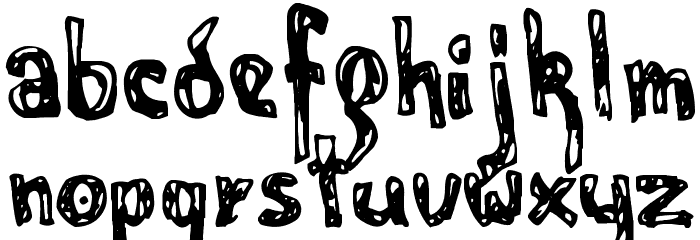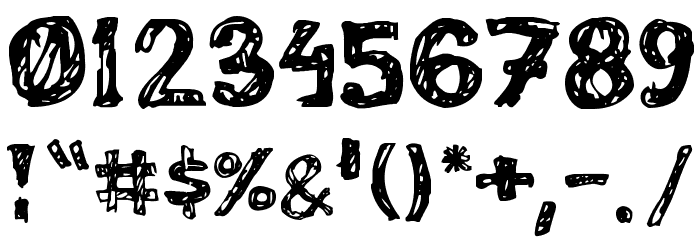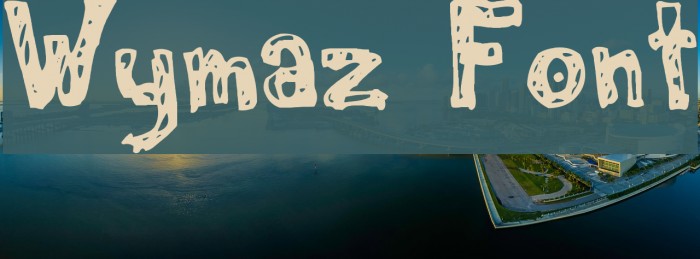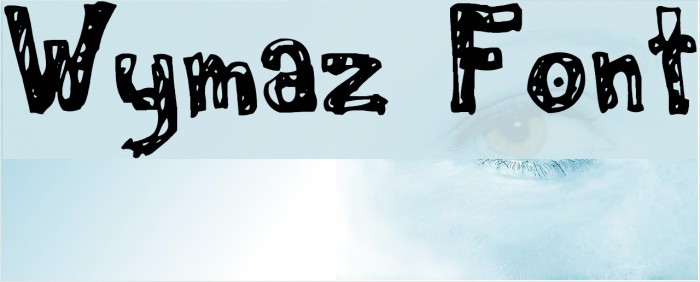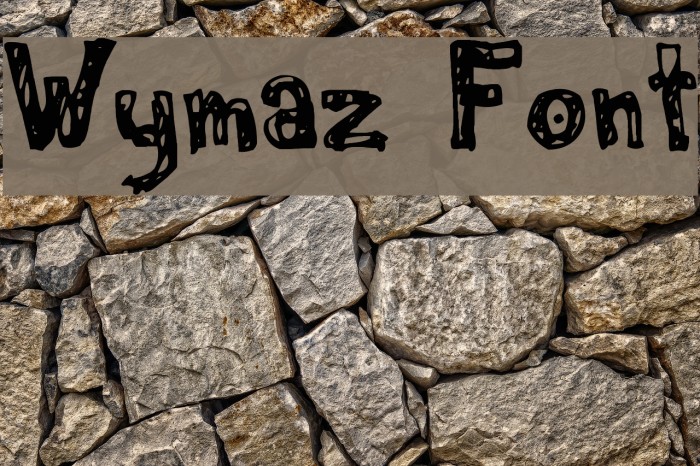
Wymaz Font
This font features a bold, hand-drawn style with a playful and chaotic appearance. The letters are irregular and have a distressed, textured look, giving them a unique and artistic flair. The uppercase and lowercase letters maintain a consistent style, with exaggerated curves and uneven lines that add to the font's whimsical character. Numbers and special characters follow the same design, ensuring a cohesive look throughout. The font's rough edges and varied line thickness contribute to its dynamic and energetic feel, making it stand out in any design.
A bold, hand-drawn font with a playful and chaotic style.
- Proposed Projects: Ideal for creative projects such as posters, album covers, children's books, and artistic branding.